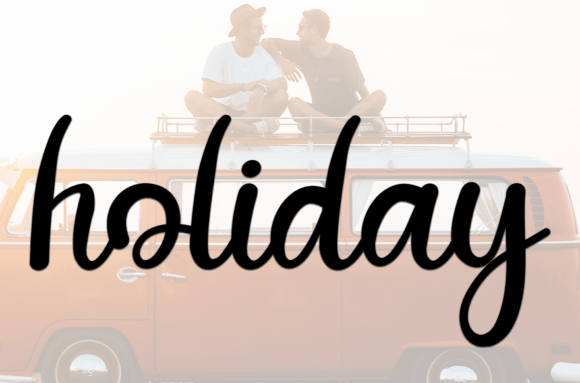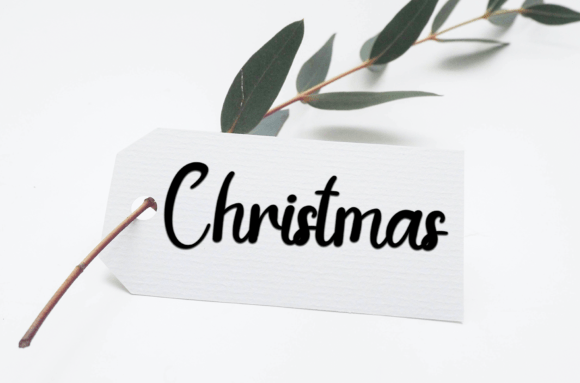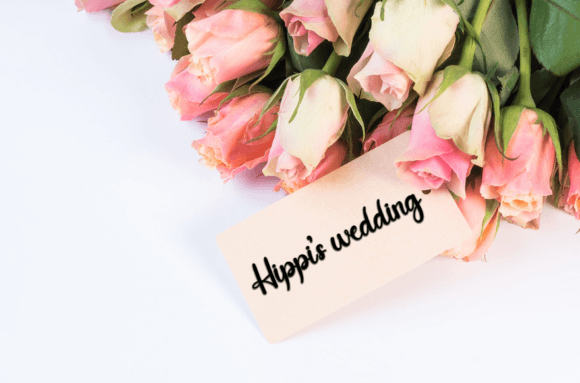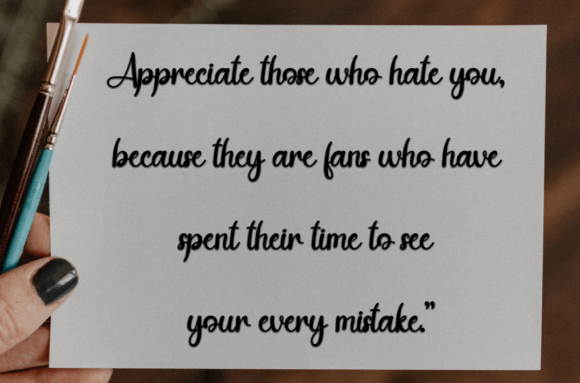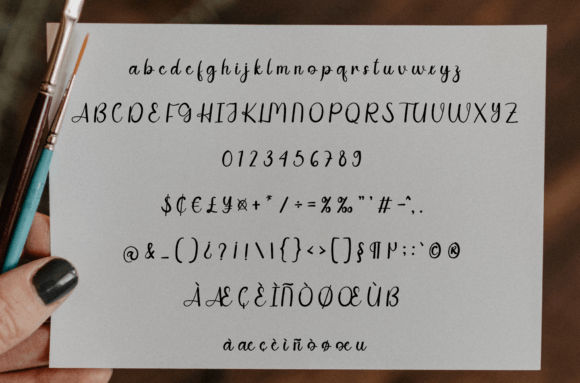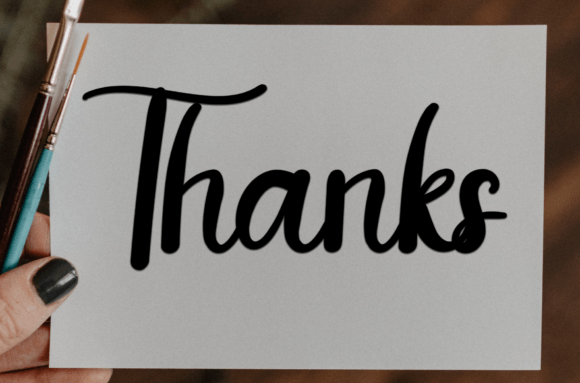
Introduction to Baby Night Font
Have you ever stumbled upon the perfect font while working on a creative project, and suddenly the whole design falls into place? That’s exactly what happened to me when I discovered the Baby Night Font. This sweet and friendly handwritten font has become an instant favorite among designers, and for good reason.
Whether you’re crafting a wedding invitation, designing a card, or working on any other project that needs a touch of warmth, the Baby Night Font is an ideal design resource. Its fun and relaxed vibe makes it perfect for conveying a sense of love and joy, and its high quality makes it a valuable asset for any designer.
Key Features of Baby Night Font
- High-quality, free download font suitable for various creative projects, including design, digital art, and publishing.
- Unique, cursive design with a transparent background, making it ideal for use on dark or colored backgrounds.
- Includes a wide range of characters, including uppercase and lowercase letters, numbers, and special symbols.
- Perfect for use in baby-themed projects, such as nursery decor, baby announcements, and children’s books.
Honest Review: Baby Night Font
As a designer, I’ve had my fair share of using fonts for creative projects. Recently, I came across the Baby Night Font, and I was excited to give it a try.
What works well is the high-quality design and the fact that it’s a free download, making it an excellent design resource for anyone working on a budget. The transparent background also allows for seamless integration with any design element.
- ✨ High-quality design
- ✨ Transparent background
However, I did encounter some limitations. The font can be a bit tricky to read, especially in smaller sizes. Additionally, it may not be suitable for projects that require a more modern or minimalist look.
- ⚠️ Can be difficult to read in smaller sizes
- ⚠️ May not be suitable for modern or minimalist designs
Overall, the Baby Night Font is a decent addition to any designer’s toolkit. While it may have some limitations, its unique design and free download make it a great resource for creative projects.
Tips for Getting the Most Out of Baby Night Font
To get the most out of the Baby Night Font, be sure to use it in conjunction with other high-quality design elements, such as graphics and images. You can also experiment with different font sizes and colors to create a unique and engaging design.
The Baby Night Font is a versatile design resource that can be used in a variety of creative projects, including business cards, brochures, and social media graphics. Its transparent background and high-quality design make it a great choice for designers looking to create eye-catching and professional-looking designs.